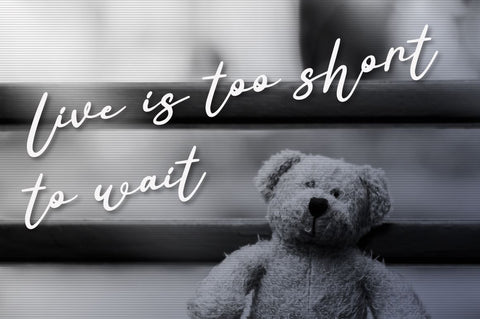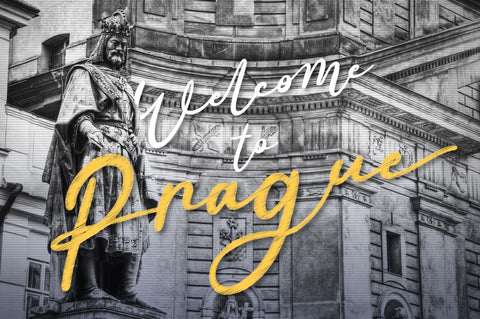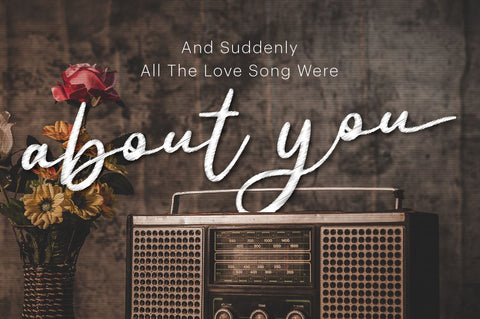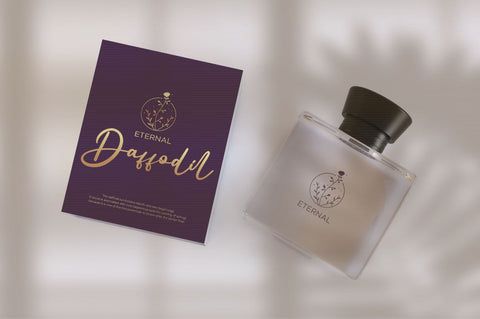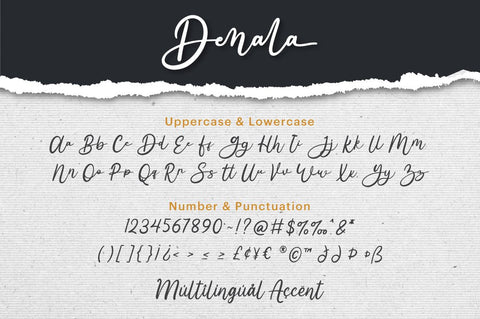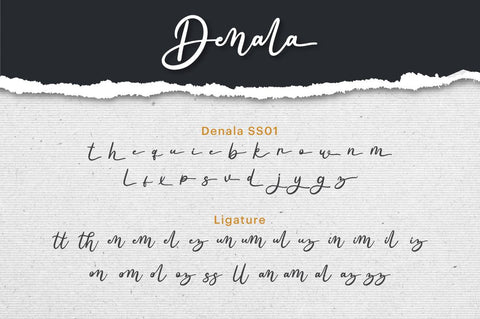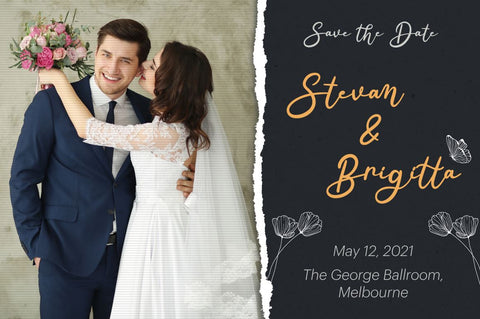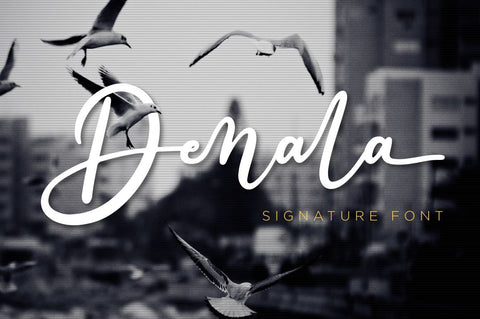
Denala - Script Font
Denala is a delicate signature font with ending swash. Fall in love with its incredibly versatile style and use it to create spectacular designs!
Denala is perfect for branding, logo, invitation, stationery, social media post, product packaging, merchandise,
blog design, game titles, cute style design, Book/Cover Title and more.
- Ending Swash